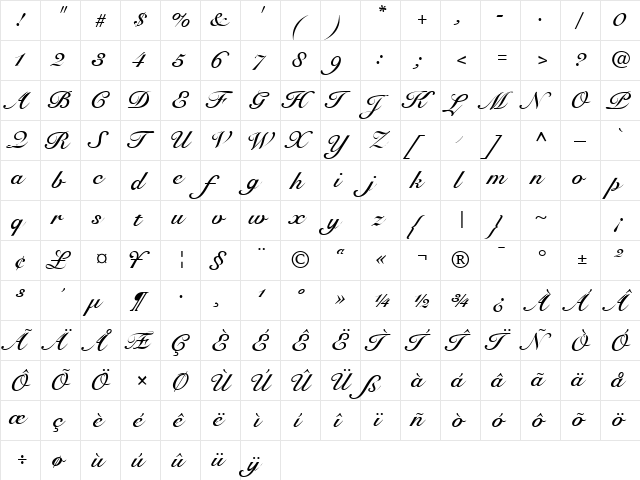
TFF Script Roundhand Bold Italic Font Preview
Design Context for TFF Script Roundhand Typeface
TFF Script Roundhand flows with the natural rhythm of handwritten lettering, making it ideal for designs that call for warmth and personal expression. The heavy weight commands attention and anchors typographic hierarchies.
Font Pairing: Combine TFF Script Roundhand with a simple geometric sans for maximum contrast — the tension between flowing curves and clean structure is a classic typographic pairing.
Pro Tip: Pair TFF Script Roundhand with a clean sans-serif for supporting text. The contrast between fluid script and geometric structure creates an elegant typographic hierarchy.